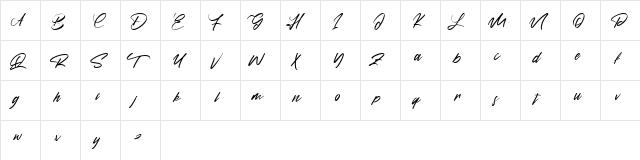
Diettersen Free Regular
| Foundry | MaulanaCreative |
| Designer | MaulanaCreative |
Design Context for Diettersen Free Typeface
Diettersen Free is a composed and adaptable typeface that performs quietly and consistently across a wide range of design contexts.